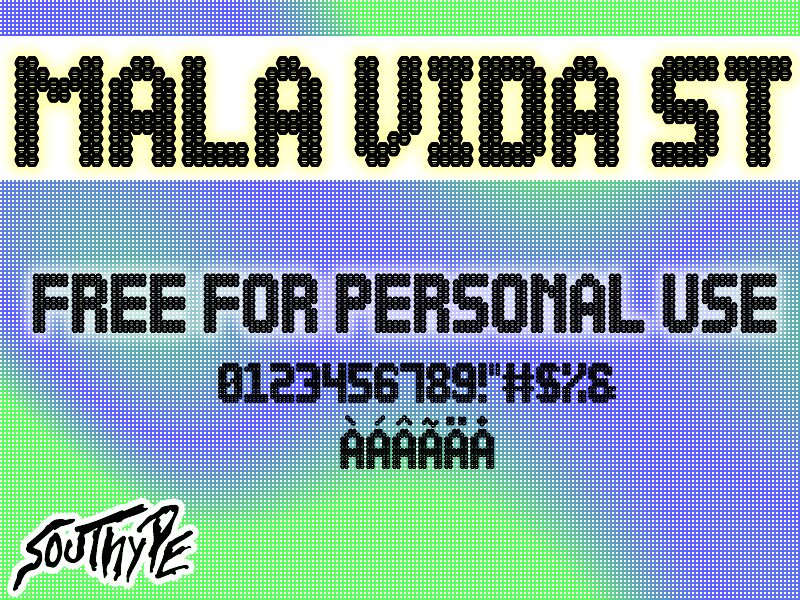
Mala Vida St is a captivating display font that exudes an edgy, unconventional charm. Designed by Southype, this condensed, decorative typeface boasts a striking, bold aesthetic that immediately commands attention. The distinctive letterforms, with their sharp, angular edges and unique negative spacing, lend the font a raw, gritty vibe, evoking a sense of urban grit and underground culture.
This font's versatility shines through, making it a compelling choice for a wide range of design applications, from eye-catching headlines and logo treatments to impactful branding and packaging. Its condensed width allows for efficient use of space, making it an excellent option for projects that require a bold, impactful typographic presence.